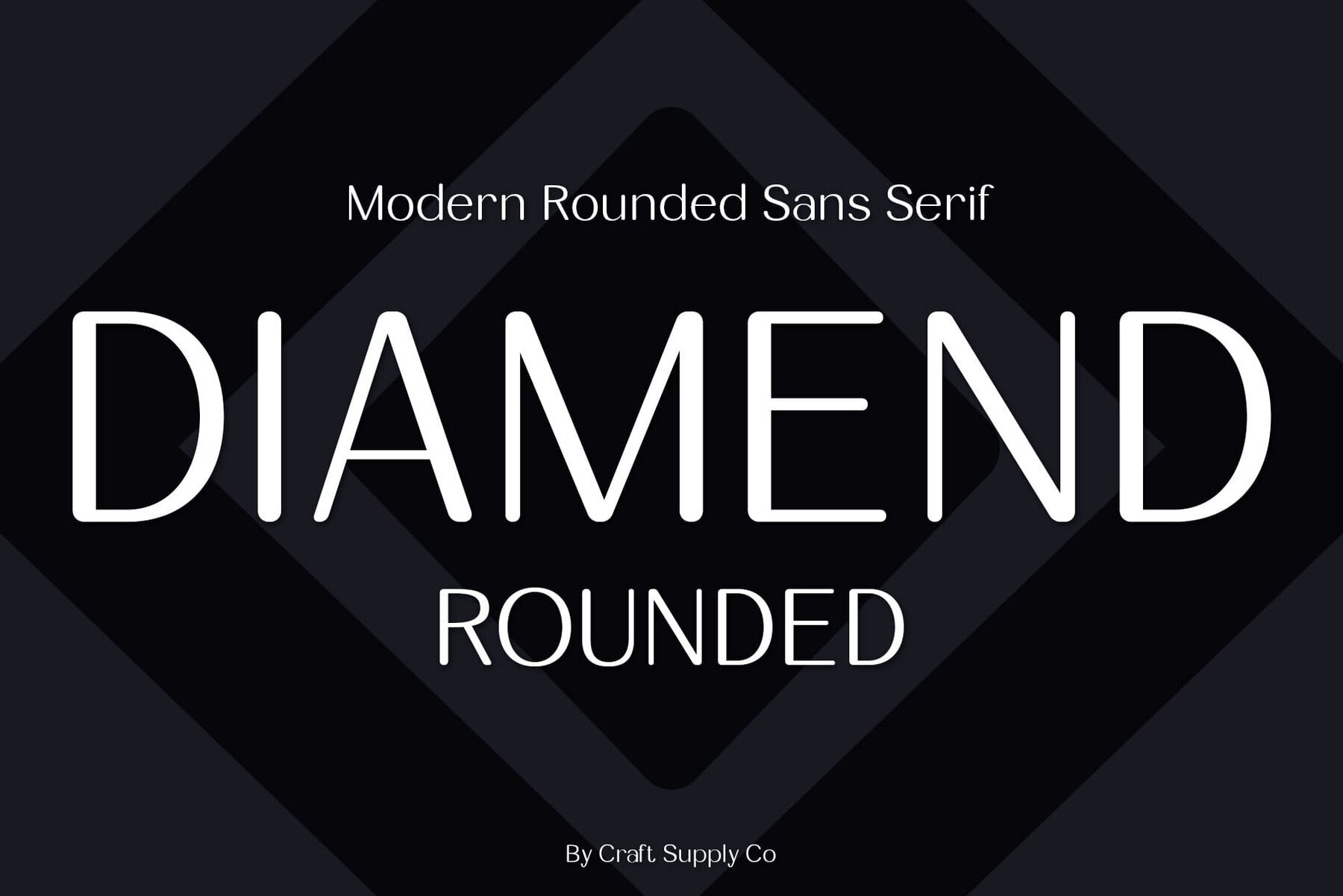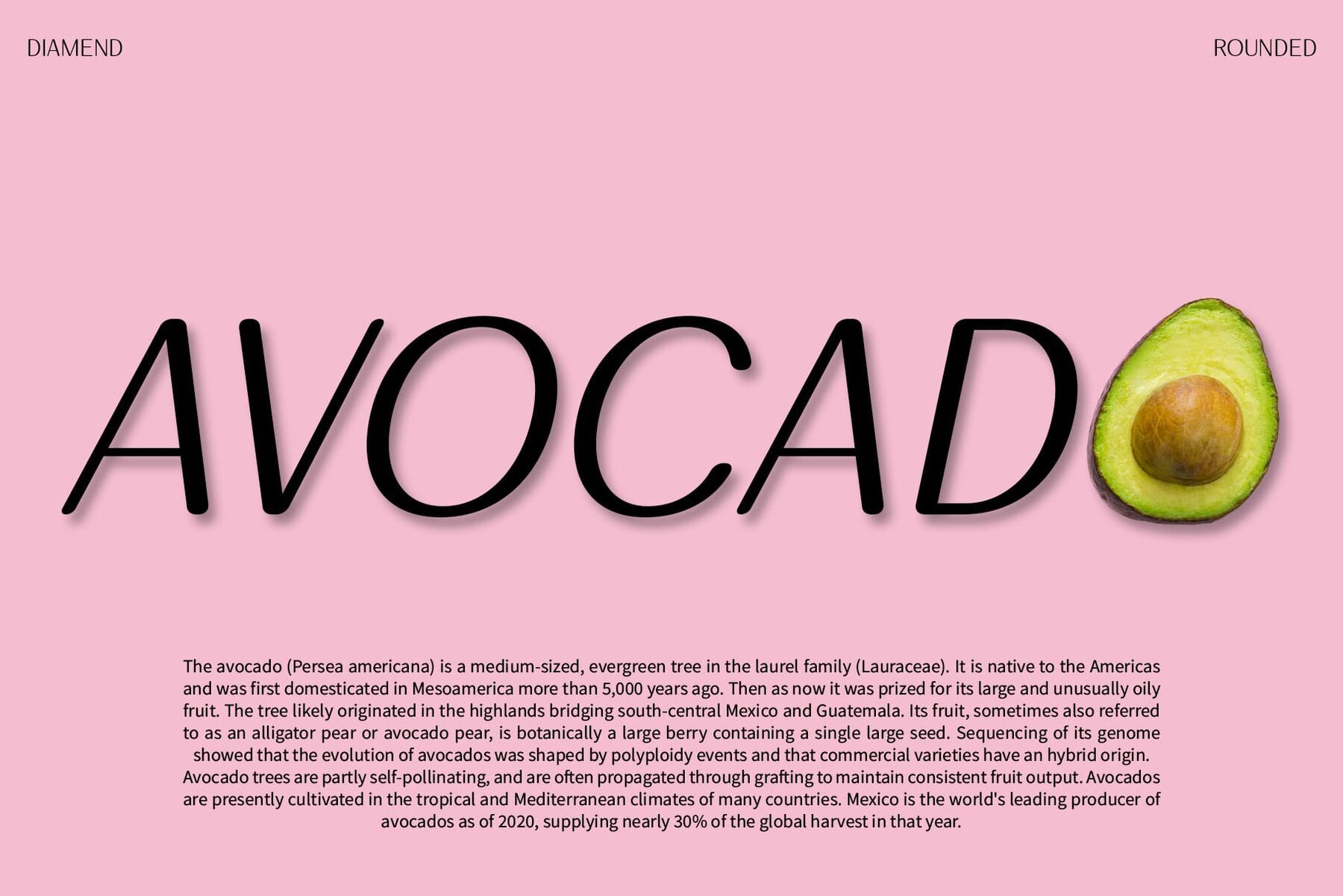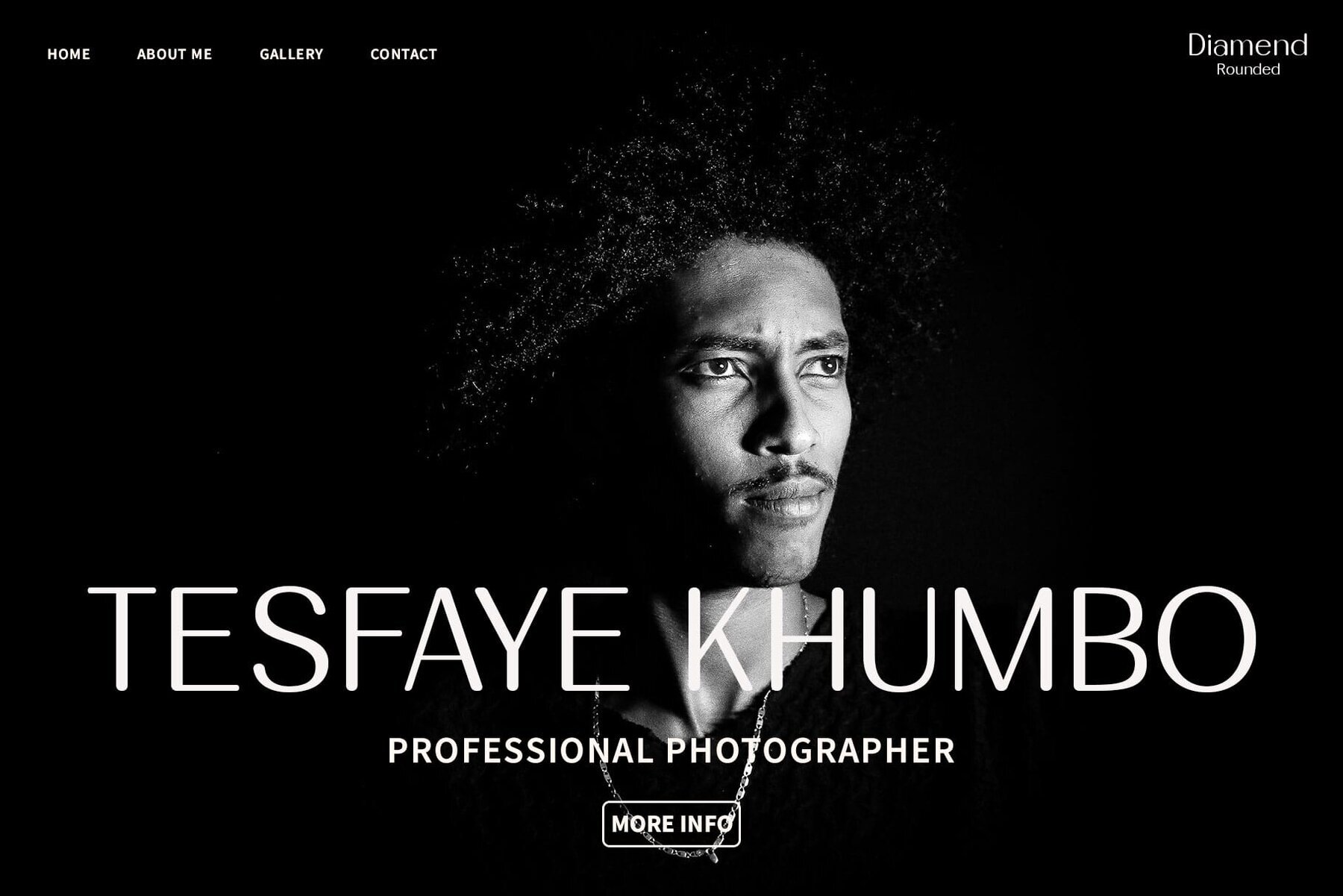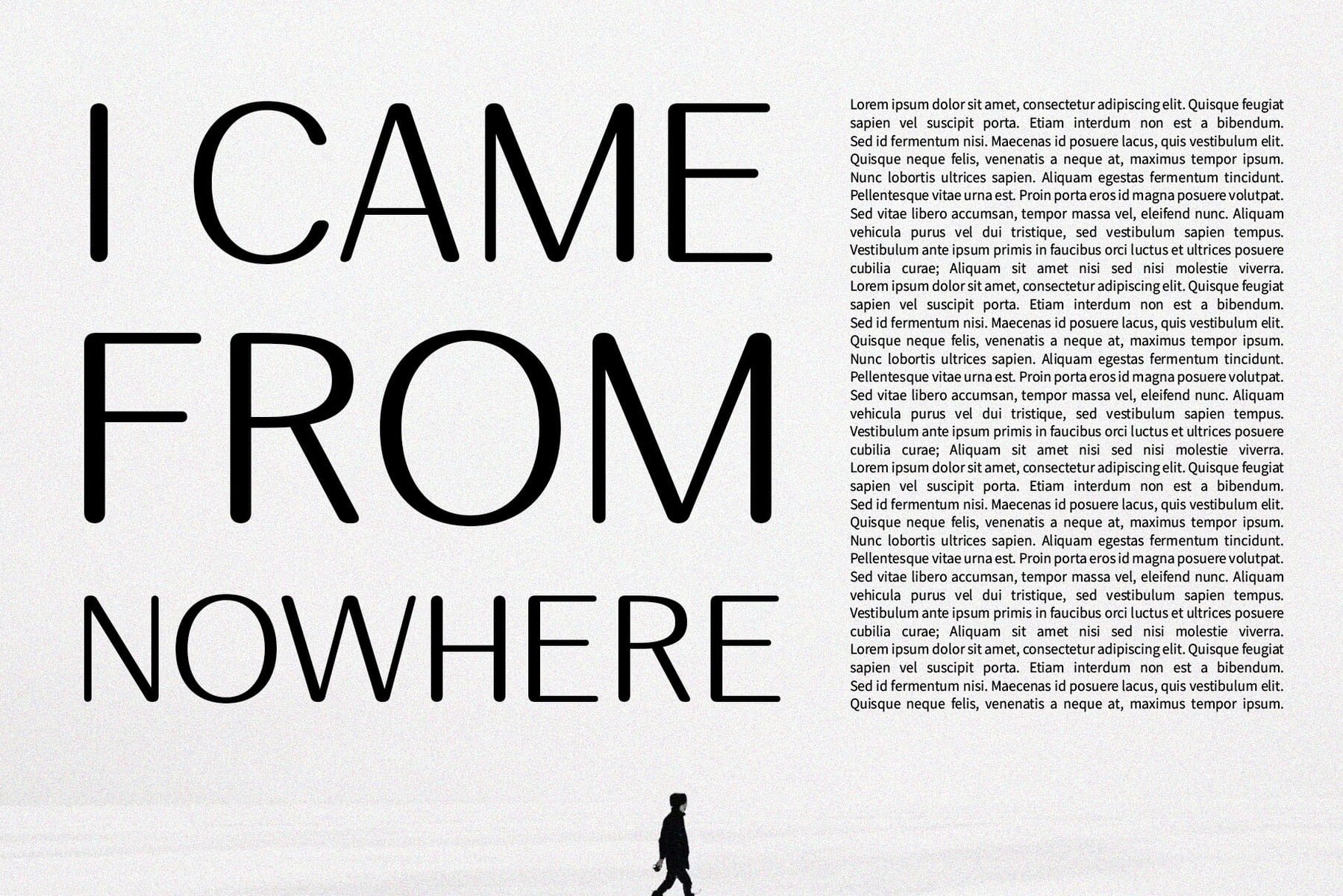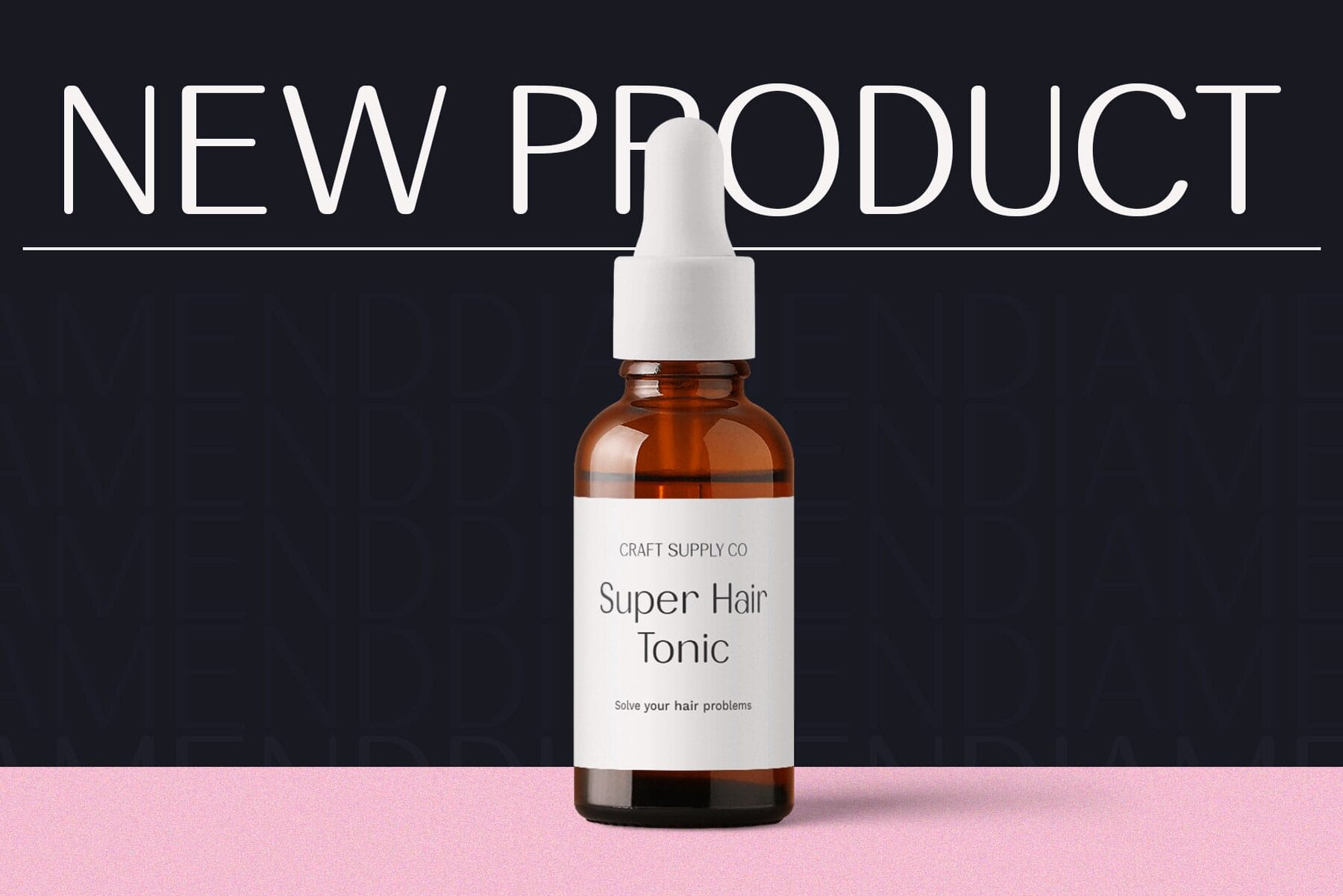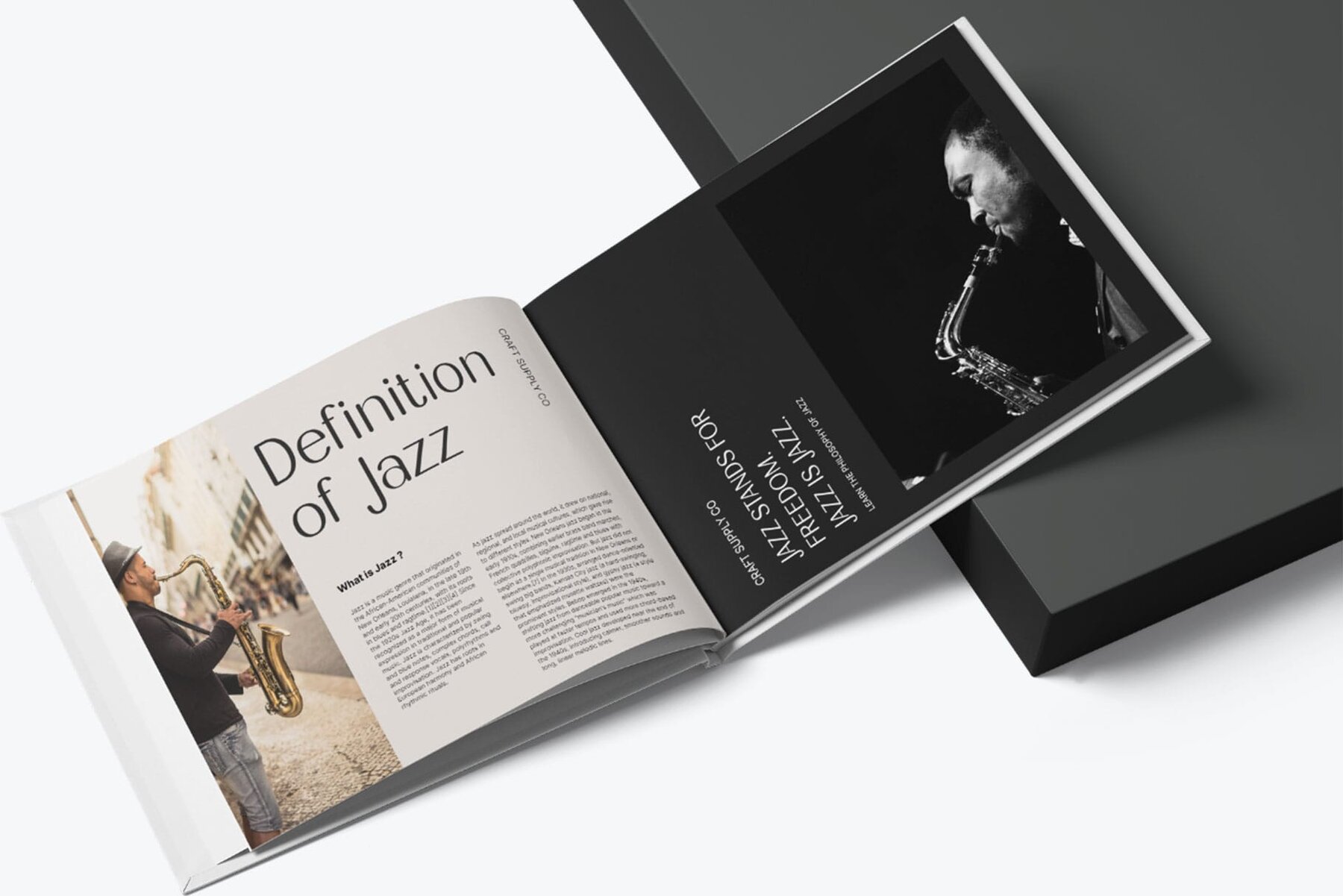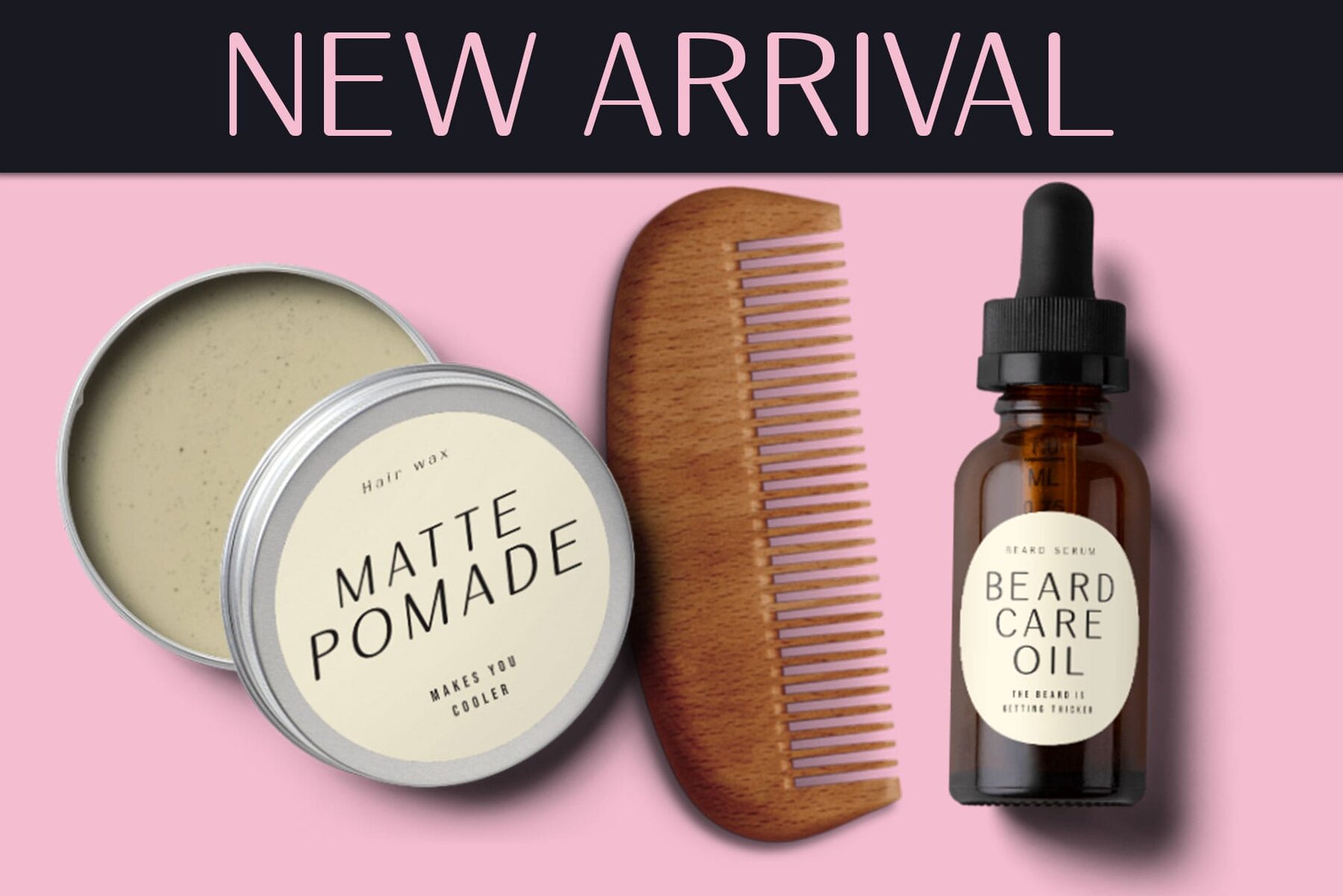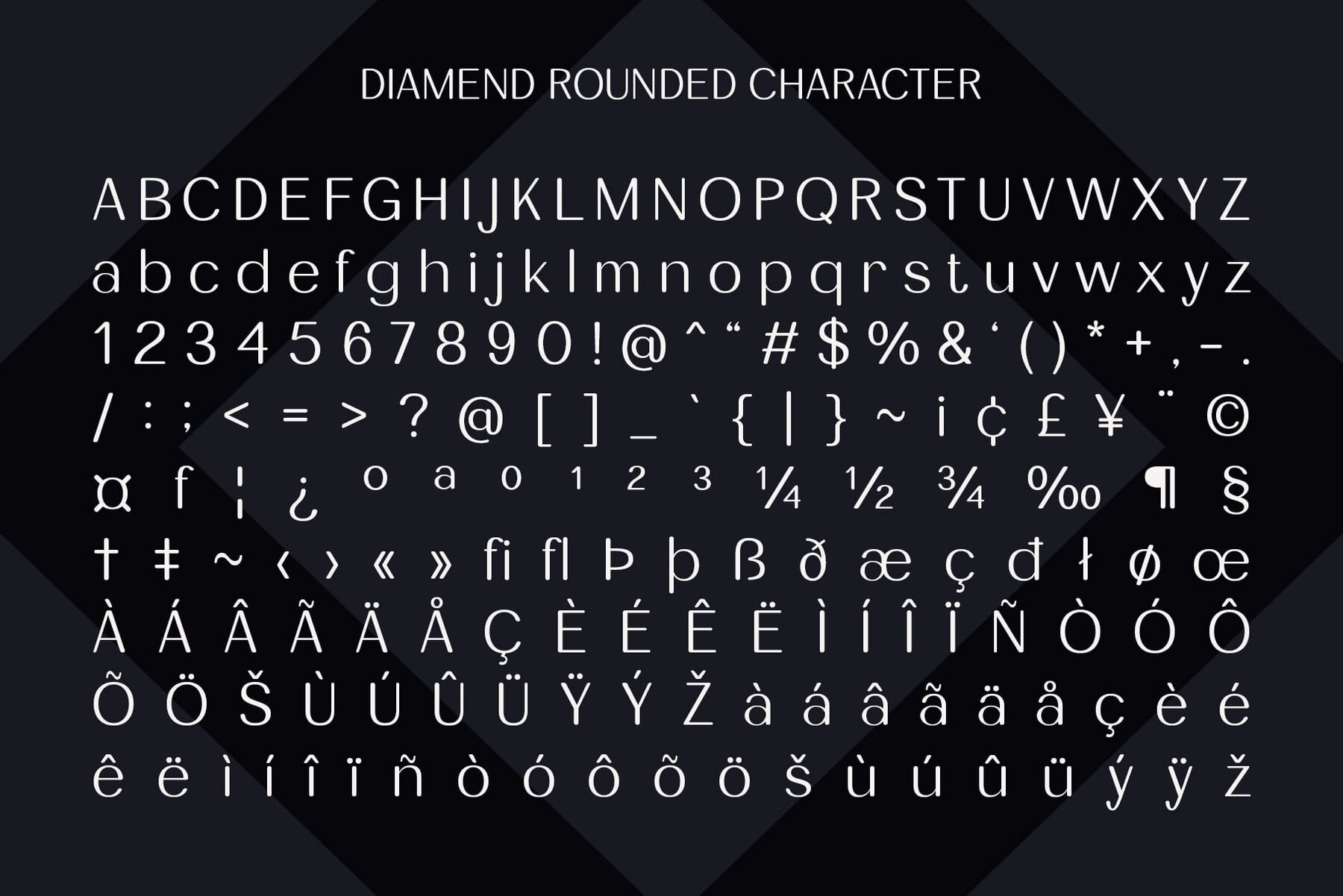
This font showcases a modernist, clean aesthetic with a geometric structure, typical of sans-serif typefaces designed for high legibility and impact in display contexts. Its uniform line weights and minimalist design evoke a sense of sophisticated simplicity, making it ideal for contemporary branding, headlines, and any project that requires a crisp, clear, and professional look.